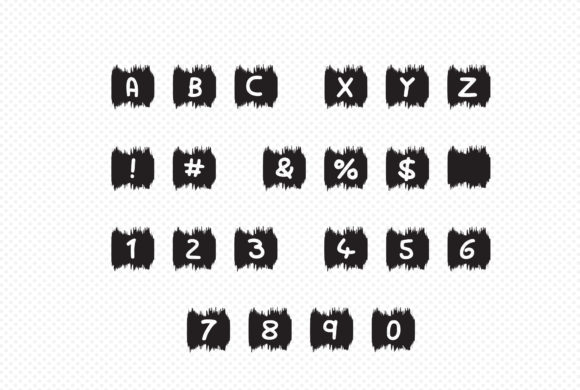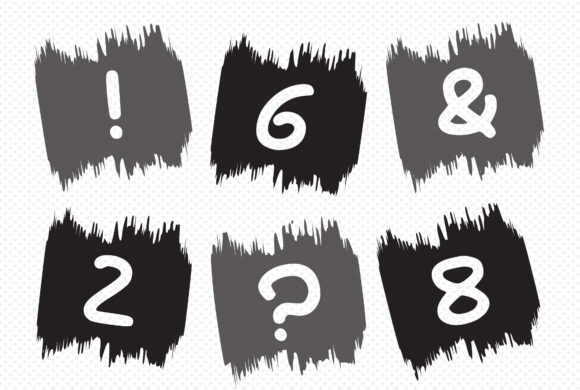
Introduction to Play Sound Wave Font
Play Sound Wave is a cool and modern decorative font.
It is the perfect choice for many projects related to music, songs, instruments, school, or anything else .
Play Sound Wave Font offers exceptional quality and versatility, making it a valuable addition to your design toolkit. Whether you’re creating for personal projects or commercial use, Play Sound Wave Font delivers professional results.